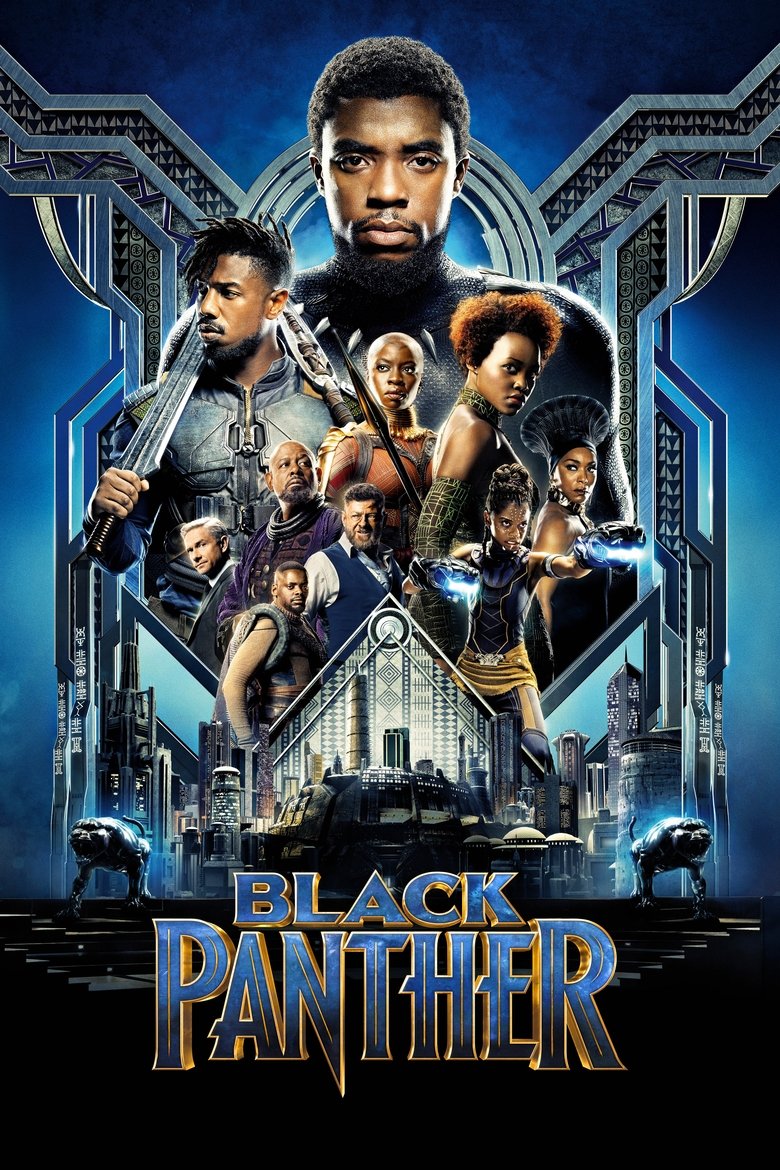
About the Black Panther font
Black Panther's title is a bold, tribal-inflected display. Anton recreates that powerful Wakandan impact.
What font is used in the Black Panther logo?+
The original Black Panther logo uses custom lettering. This generator recreates the look with Anton — a free, open-license font you can style and download.